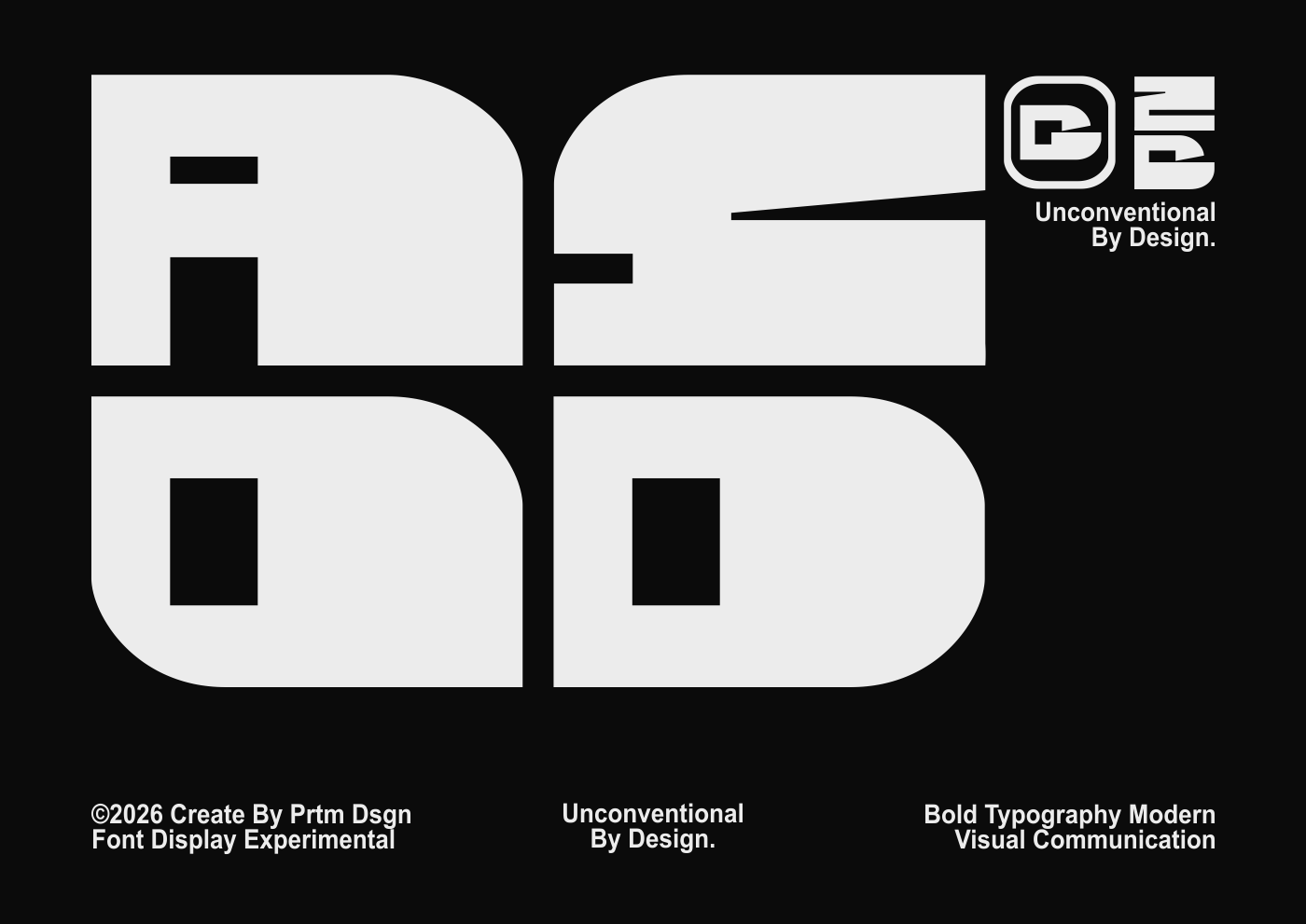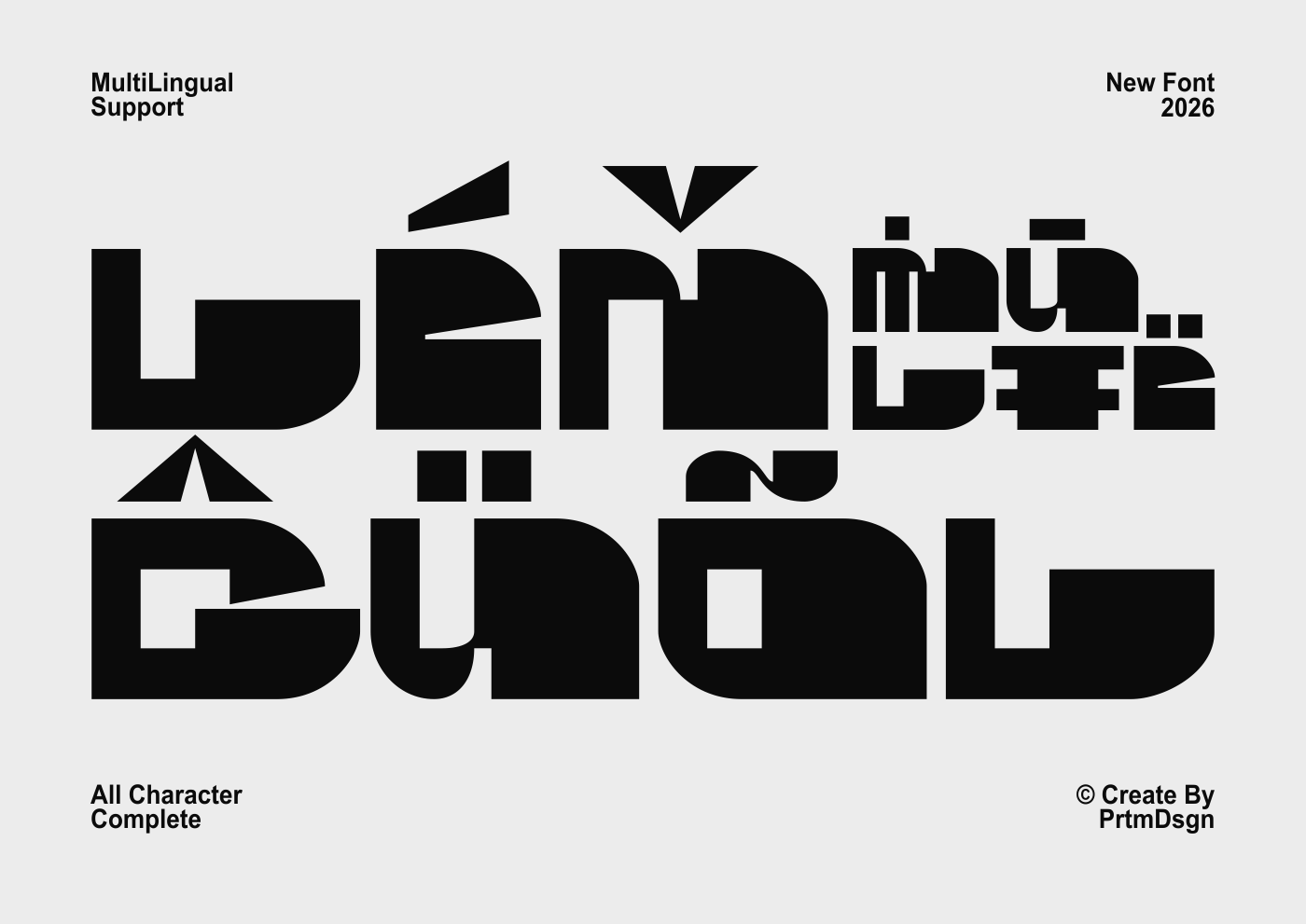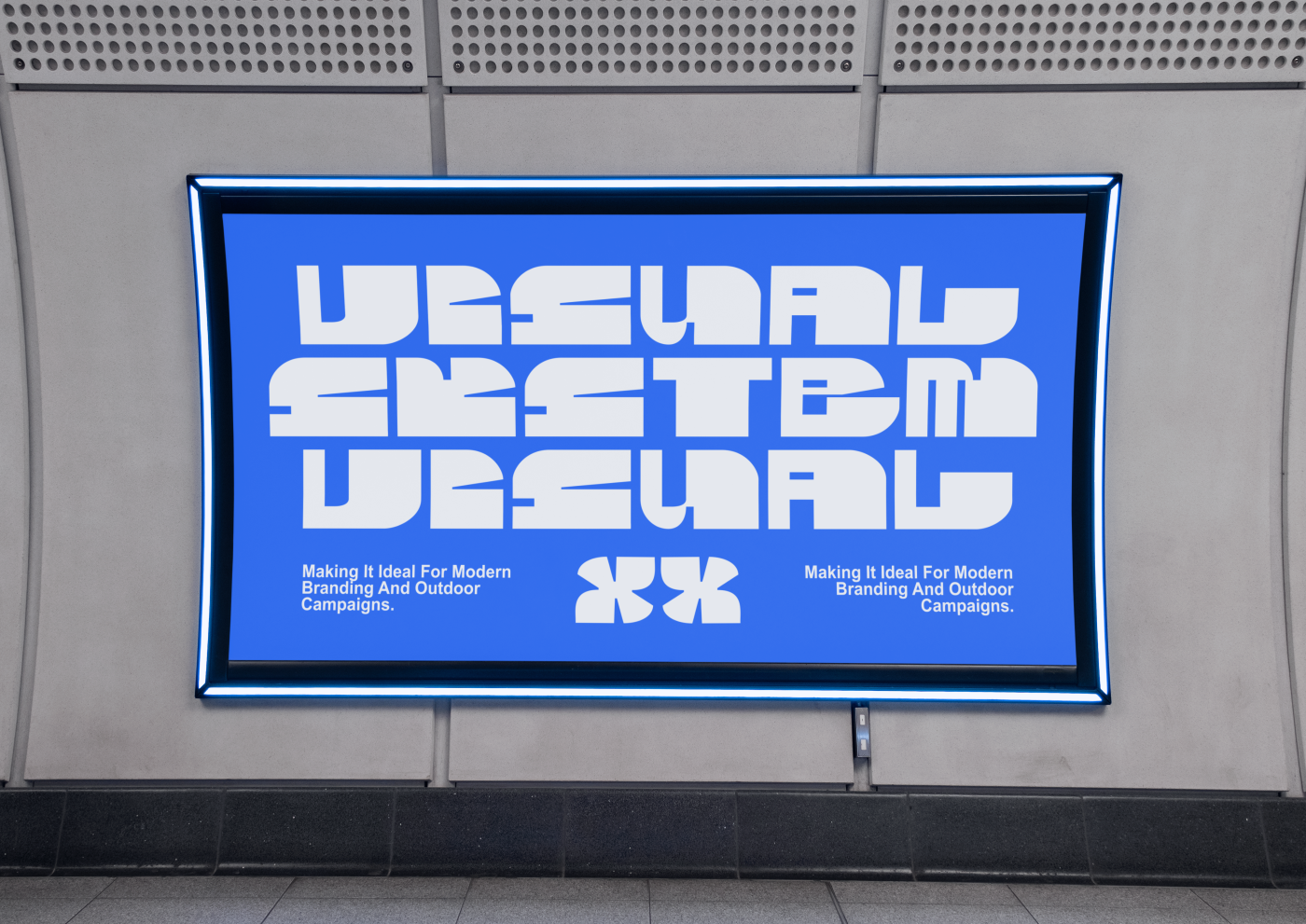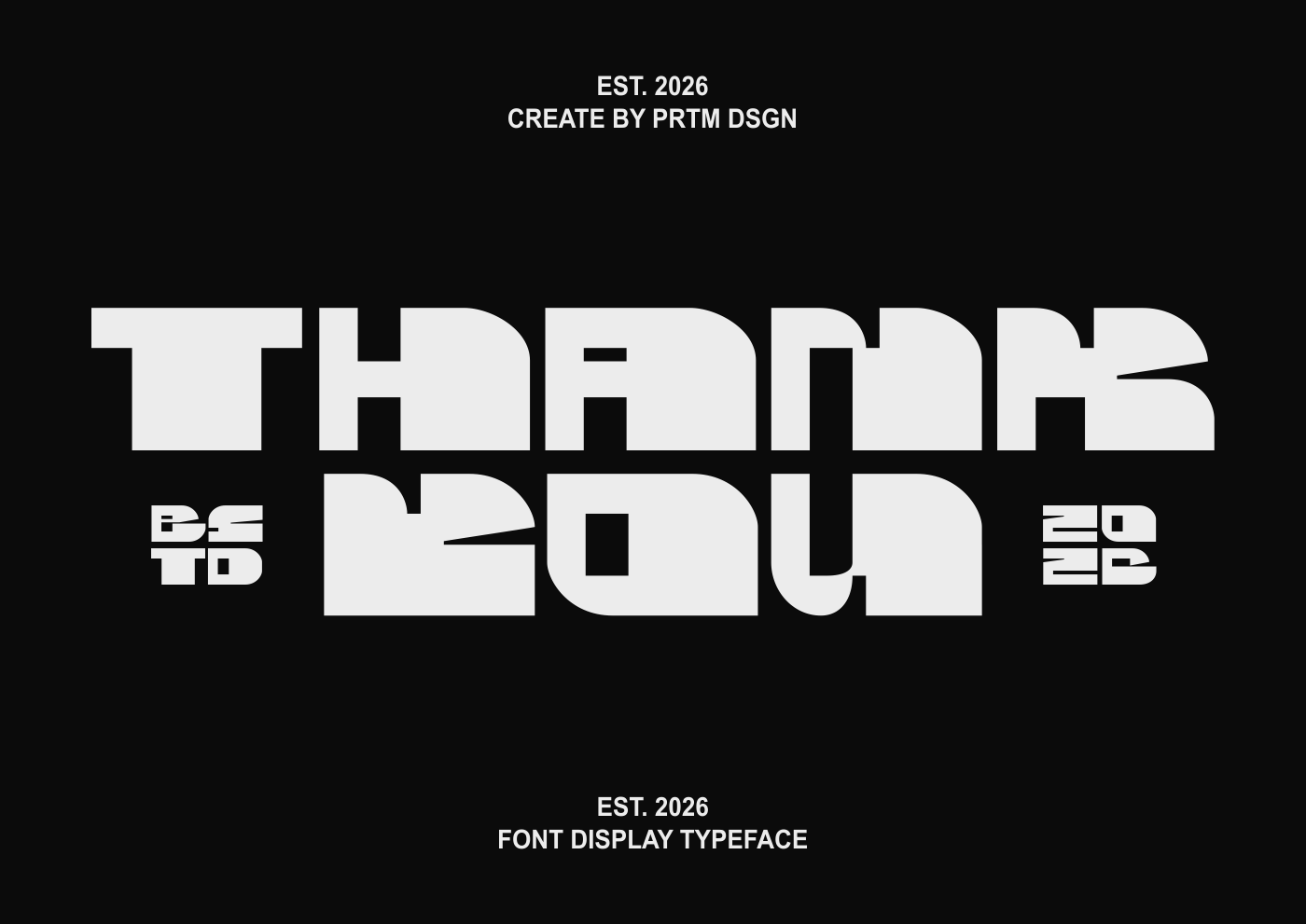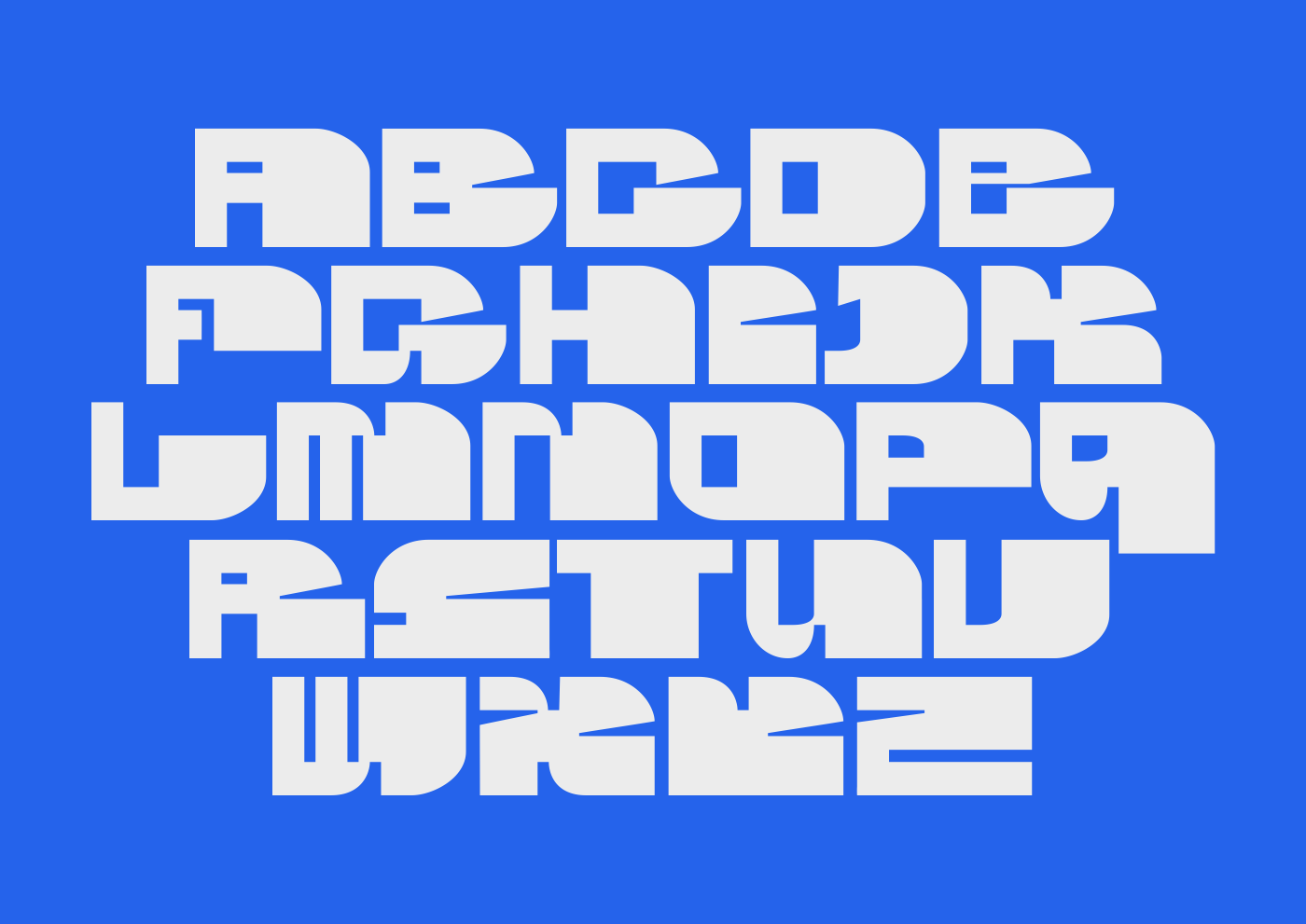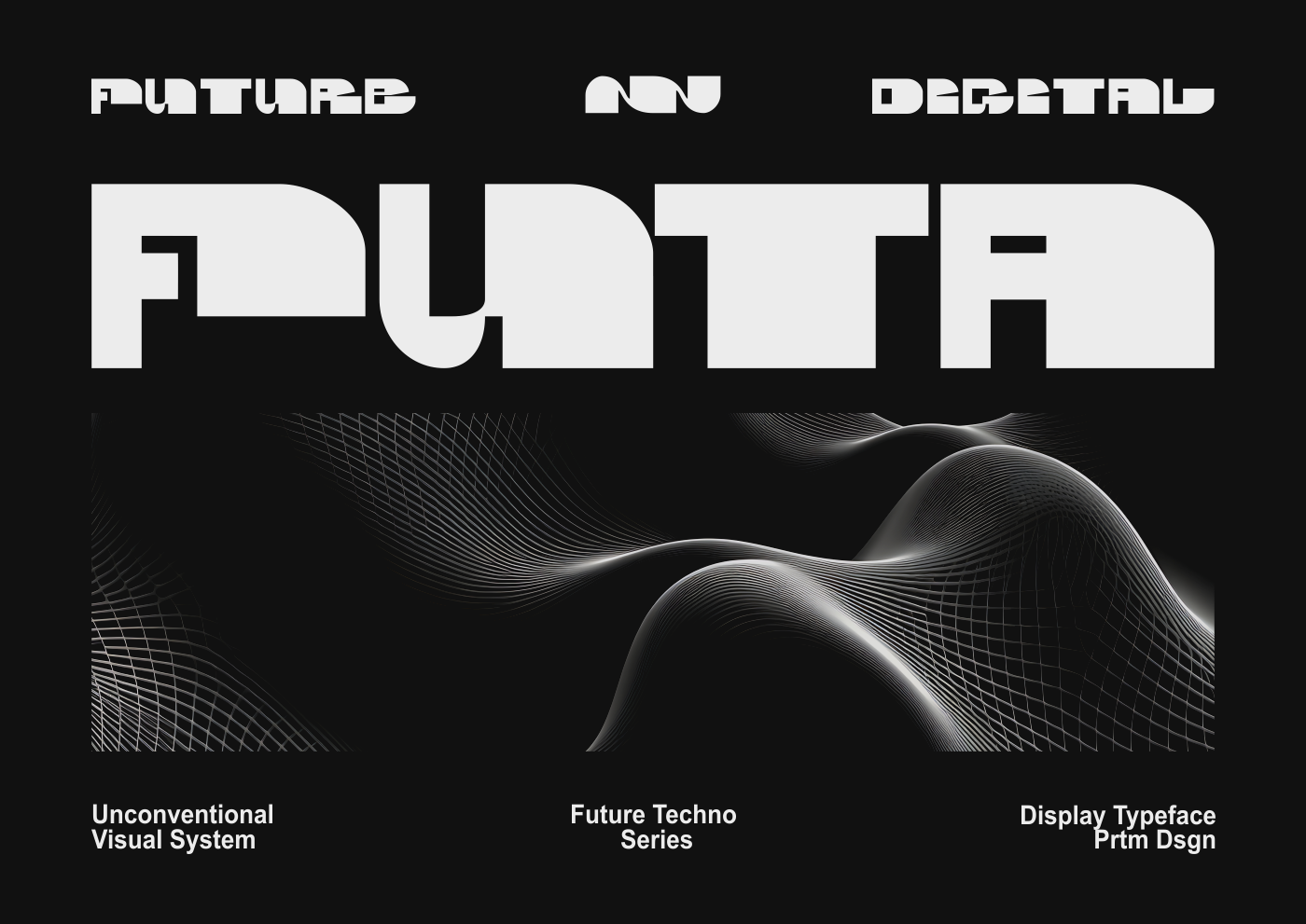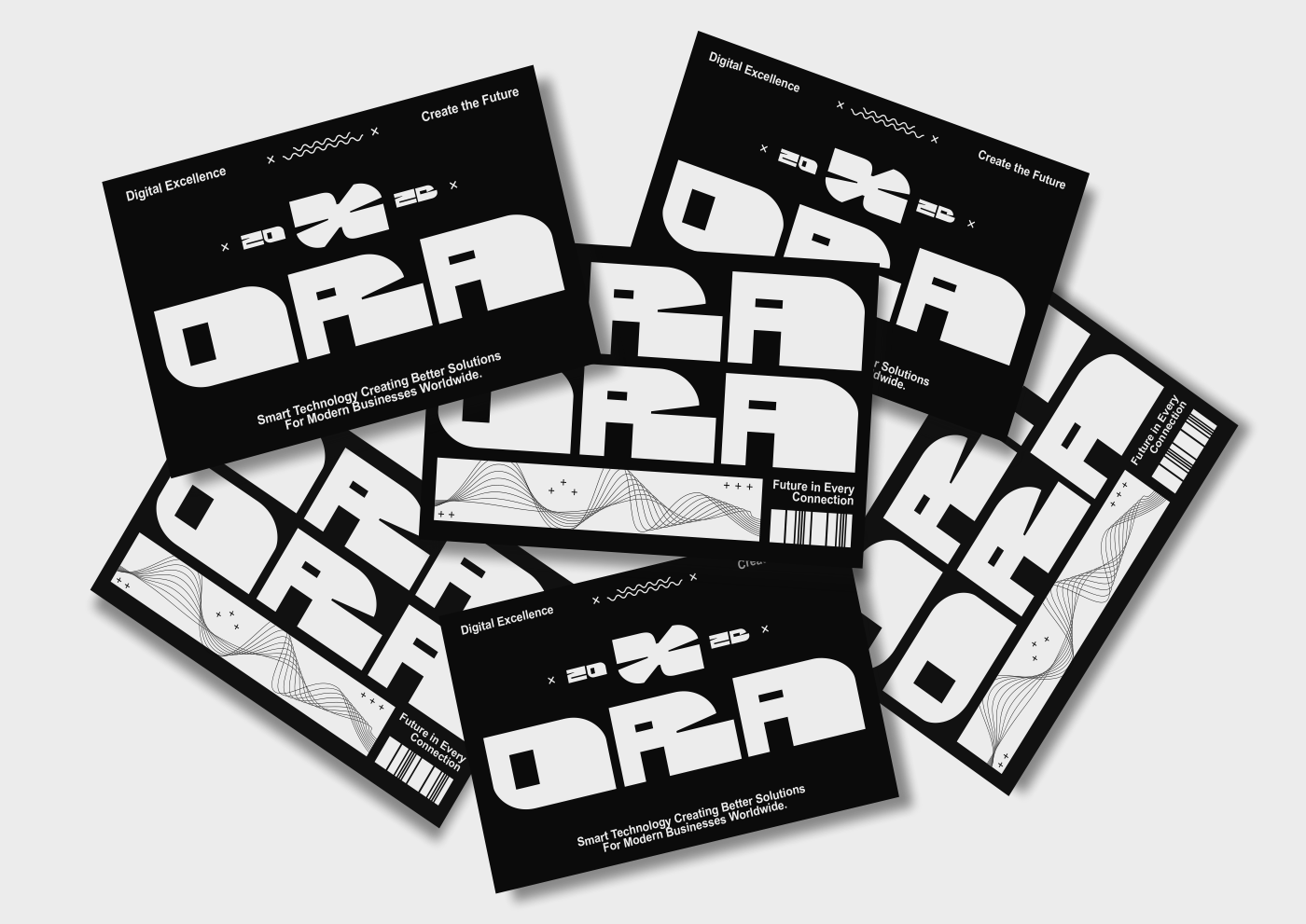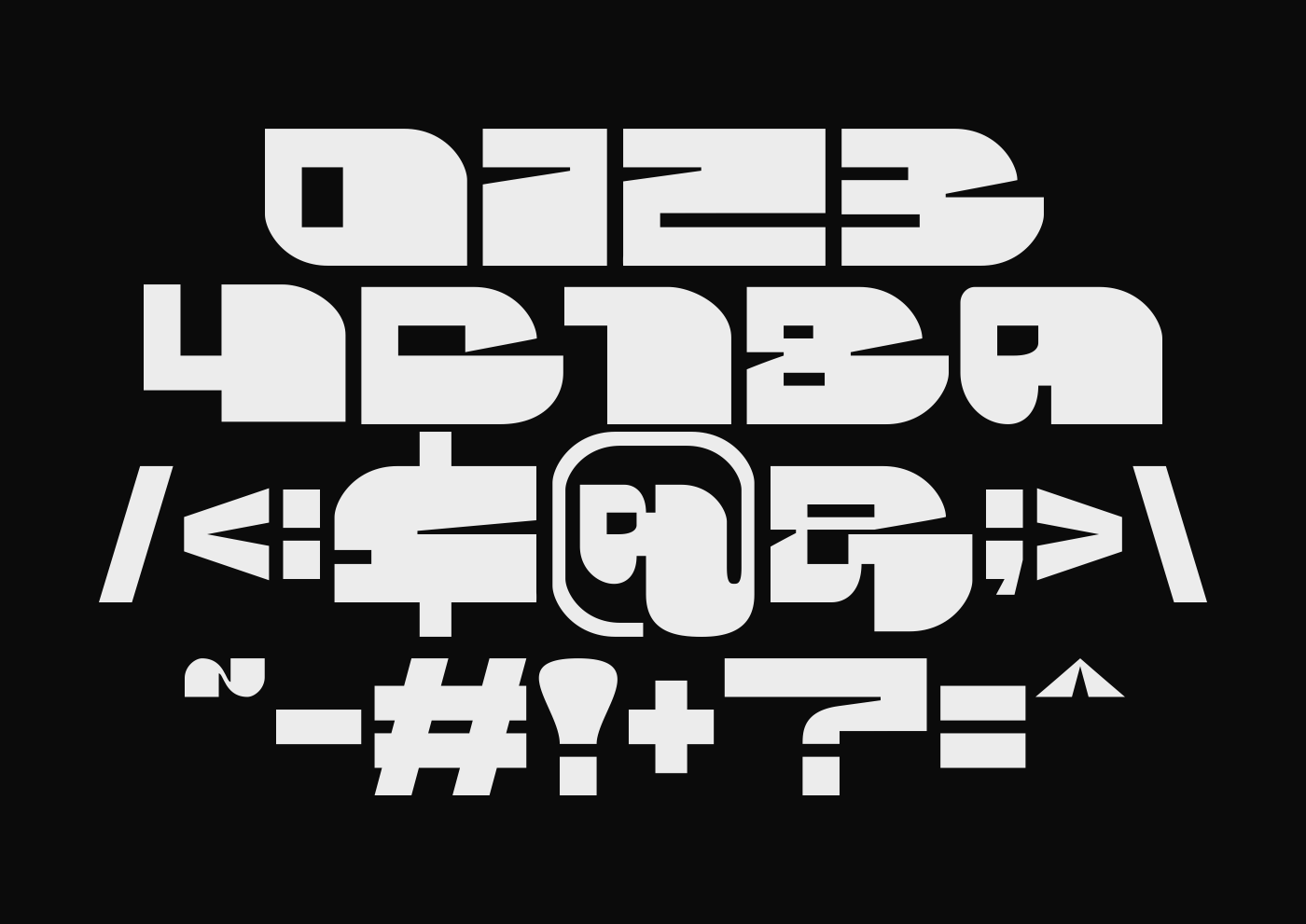
ASOD is a bold experimental display typeface created to challenge conventional typographic forms through a refined modular approach. Combining geometric precision with expressive construction, the typeface features oversized proportions, smooth rounded terminals, and distinctive angular cuts that establish a powerful visual identity.
Rather than prioritizing neutrality, ASOD embraces character and innovation, making every letter an integral part of the overall composition. It is designed for designers and creative professionals seeking typography that functions not only as text but also as a compelling visual statement. Perfect for branding, posters, creative campaigns, fashion, music, technology, editorial design, and contemporary visual communication.